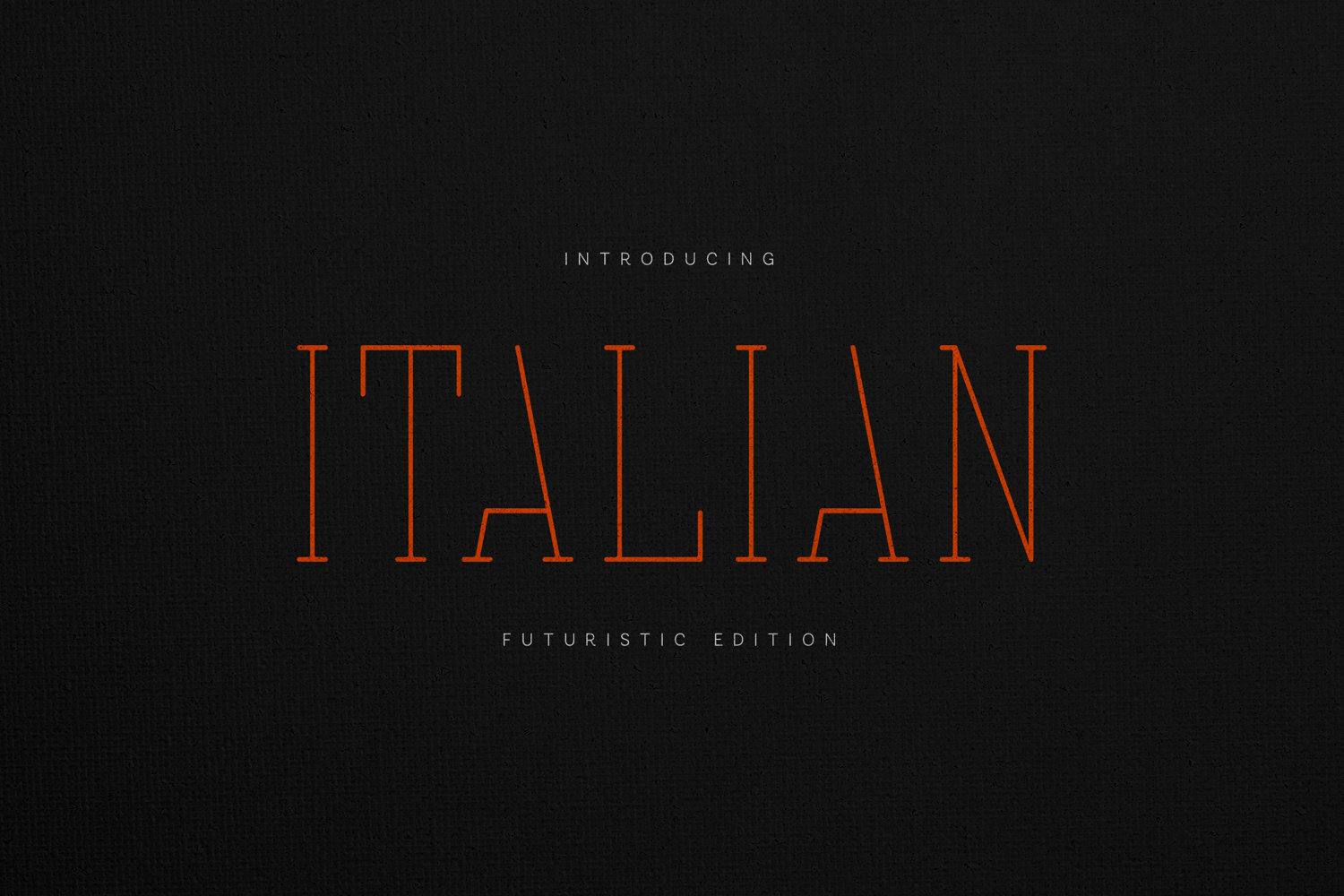
Italian Futuristic Elegant Serif Font
Italian is a futuristic elegant serif font designed with precision, restraint, and a forward-looking aesthetic. Featuring thin strokes, sharp terminals, and elongated proportions, Italian delivers a distinctive balance between classic serif structure and modern experimental design.
The Futuristic Edition emphasizes minimal contrast and architectural letterforms, giving the font a refined, almost technical feel. It works beautifully for conceptual branding, editorial layouts, fashion visuals, posters, and cultural projects where typography needs to feel intelligent, calm, and progressive.
Italian is expressive without being loud. Its subtle details and clean rhythm make it ideal for large headlines, titles, and short text compositions that demand elegance with a contemporary edge.
The font includes a full character set with extensive multilingual support, numerals, punctuation, and symbols, making it suitable for professional use across print and digital platforms.
• Futuristic Serif Font
Good For
• Futuristic & Conceptual Branding
• Editorial & Magazine Design
• Fashion & Luxury Projects
• Posters & Headlines
• Cultural & Art Direction
• Album Covers & Visual Identity
• Modern Typography Systems